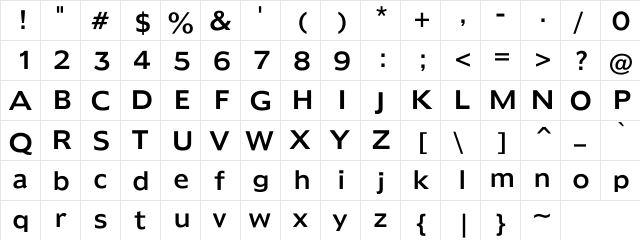
South Central Heavy Regular
Design Context for South Central Heavy Typeface
South Central Heavy is a composed and adaptable typeface that performs quietly and consistently across a wide range of design contexts.